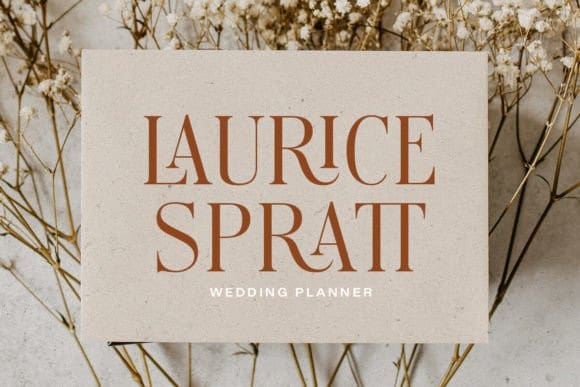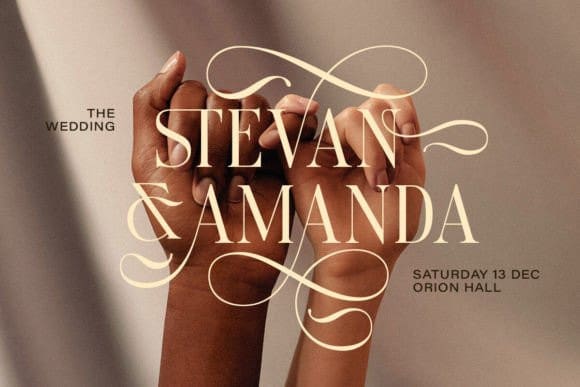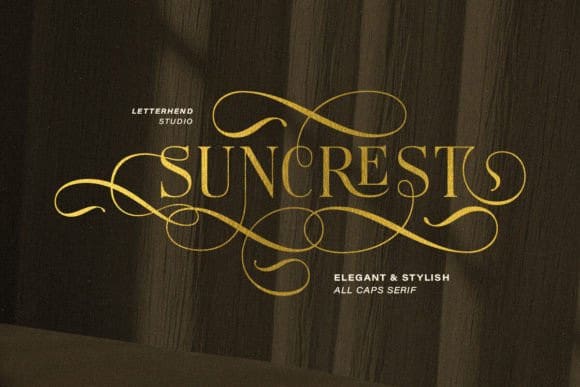
Suncrest Font
Suncrest Font is an all-caps serif font that radiates elegance and stylish. Its stylish alternates and delicate swashes make it the perfect choice for creating designs that demand a refined and chic look. From high-end branding to elegant wedding invitations, this font will captivate with its luxurious appeal.